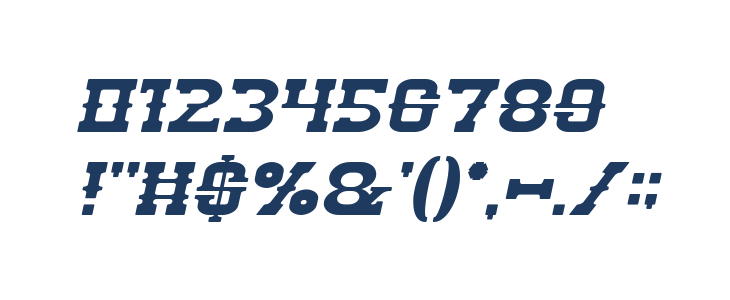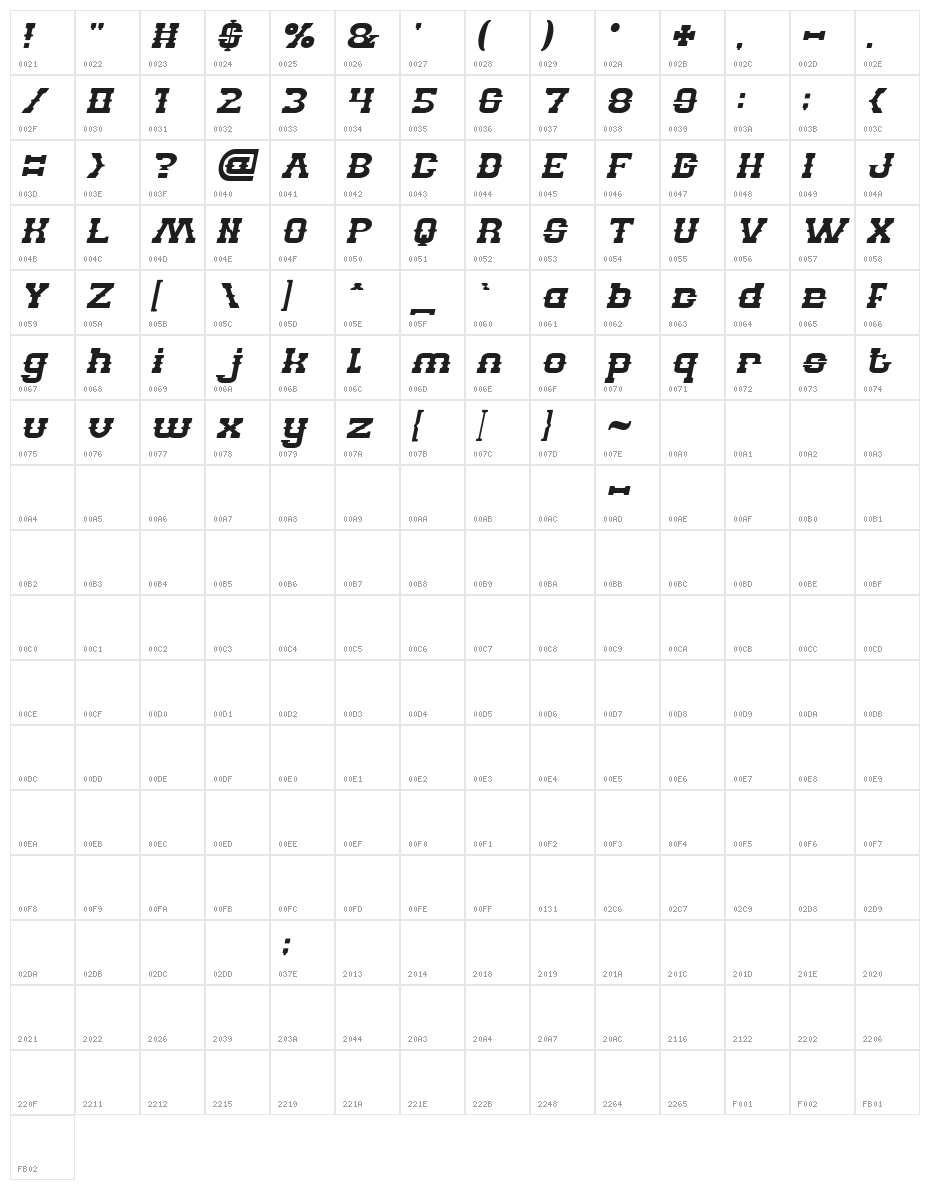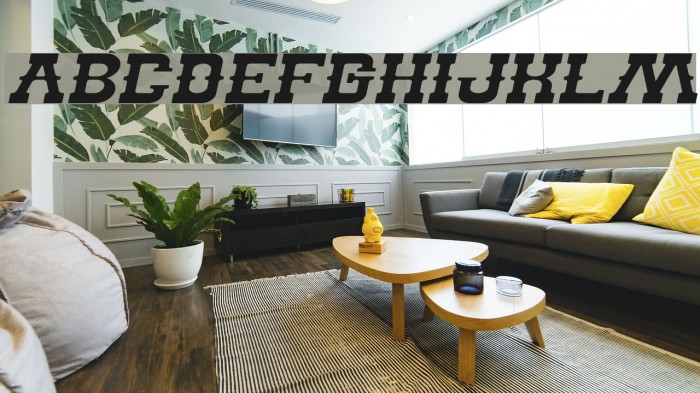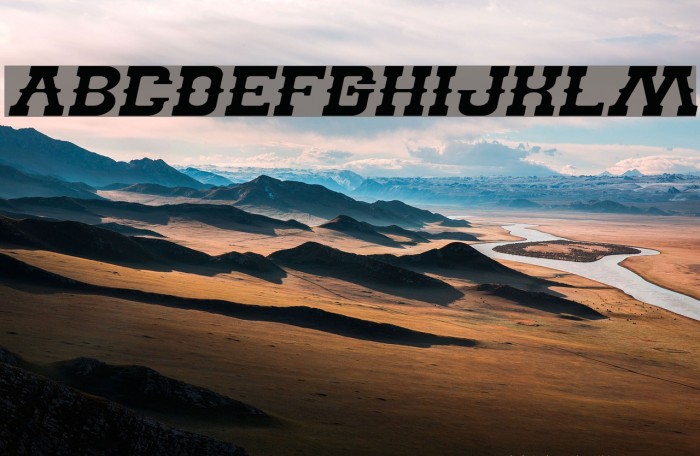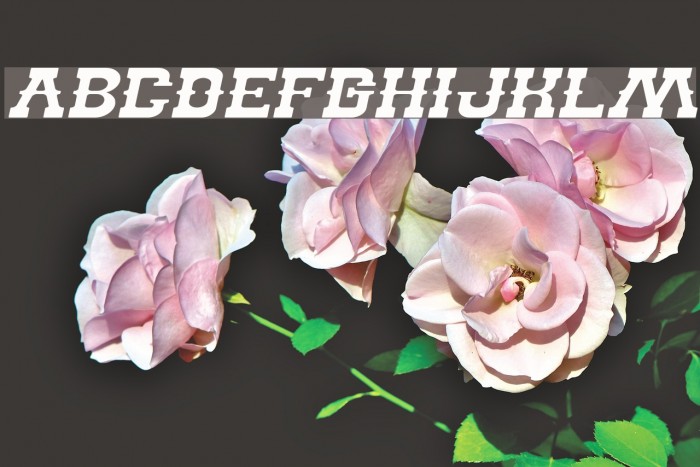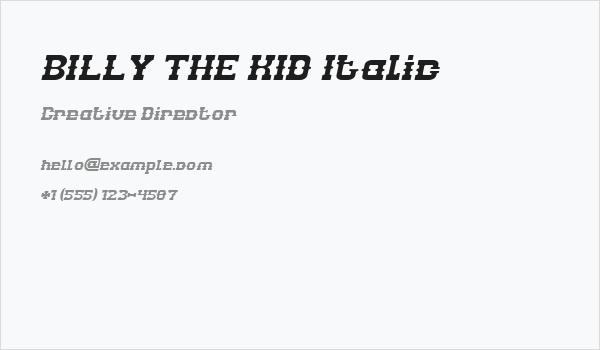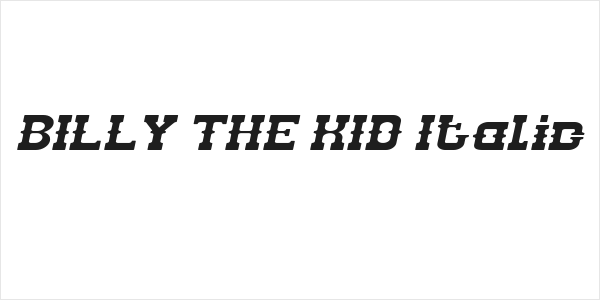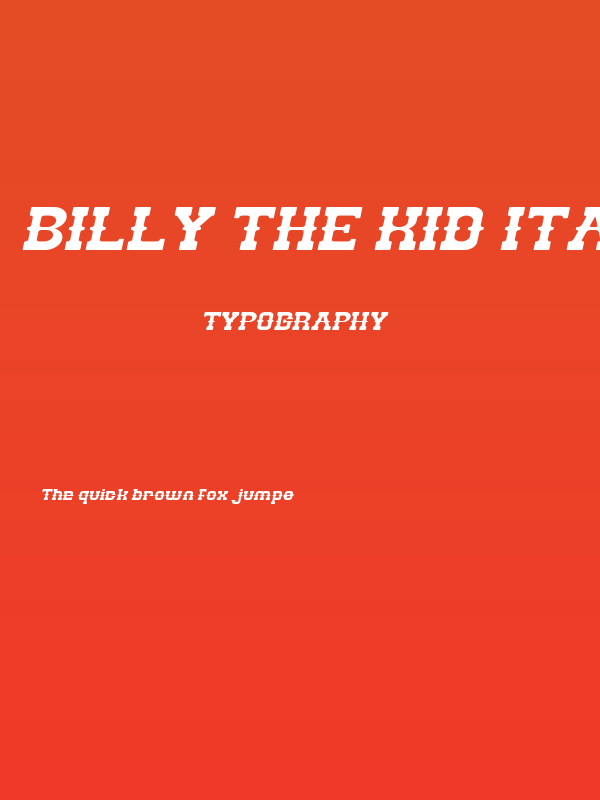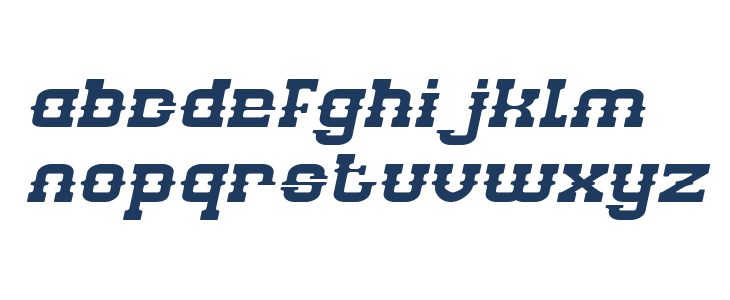
BILLY THE KID Italic Font
BILLY THE KID Italic Description
This font features a bold and dynamic design with a distinct italic slant, giving it a sense of movement and energy. The characters are robust and impactful, with thick strokes and sharp edges that create a strong visual presence. The uppercase and lowercase letters maintain a consistent style, while the numerals and special characters complement the overall aesthetic. The font's unique style is reminiscent of vintage western typography, making it ideal for projects that require a bold and adventurous look.
| Proposed Projects | Ideal for posters, branding, and signage that require a bold, adventurous aesthetic. |